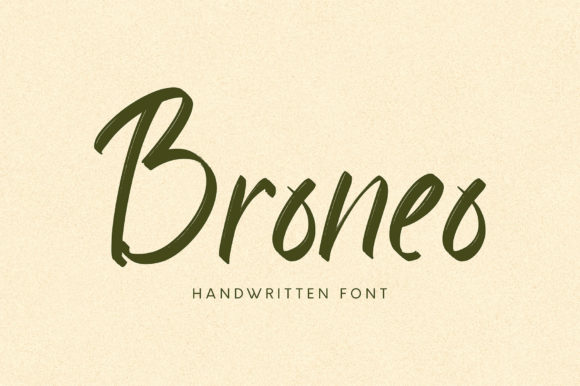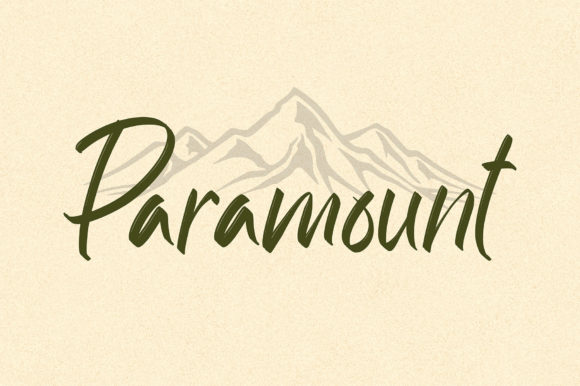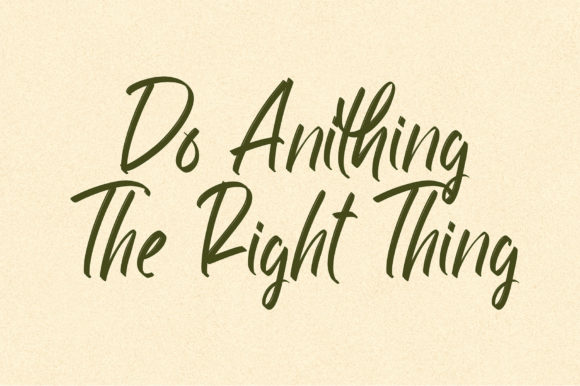
About Broneo Font
Broneo is a beautiful and distinct handwritten font, created with the help of a brush pen. Fall in love with its incredibly versatile style and use it to create spectacular designs!